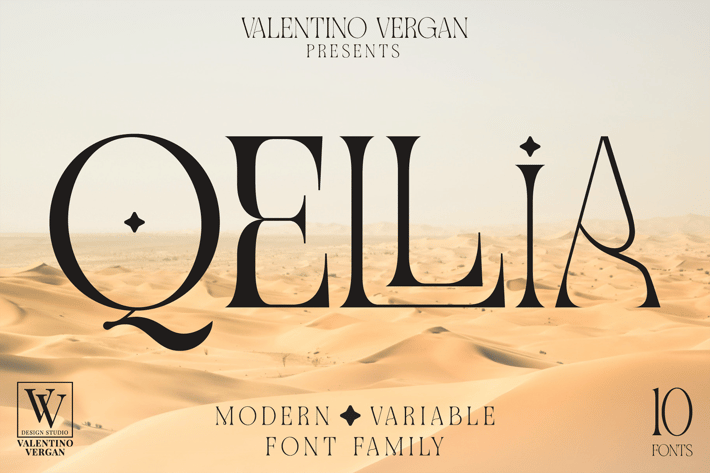
Qellia - Variable Font Family
Qellia is a modern variable font family with lots of style and creativity. Qellia is designed with beautiful ligatures and unique alternate characters. The tall and slim nature of the Qellia characters gives the font an elegant and classy look. The font family contains 10 fonts and 1 variable font, there are 5 weights, and each weight has an oblique. The variable version makes it easy to manually adjust the weight and slant.
The Qellia font family has multilingual support for languages such as: Danish, English, Finnish, French, German, German (Switzerland), Norwegian Bokmål, Norwegian Nynorsk, Portuguese, Spanish, Swedish, Swiss German.
Qellia is designed with unique letters, this makes it perfect for a wide range of projects such as: branding, magazines, logos, wedding invitations, editorials, product packaging, advertisements and much more.
QELLIA INCLUDES A FULL SET OF:
Uppercase and lowercase letters.
Numbers.
Punctuation.
Ligatures.
Alternate characters.
* Multilingual Symbols.